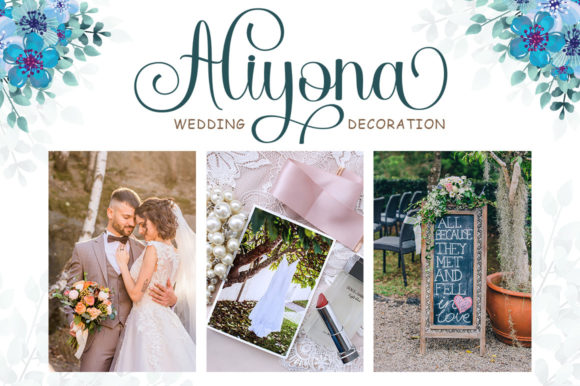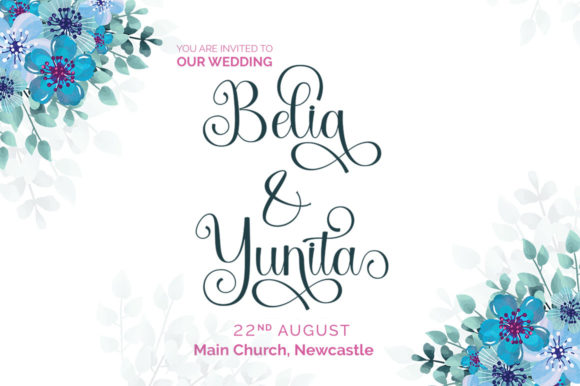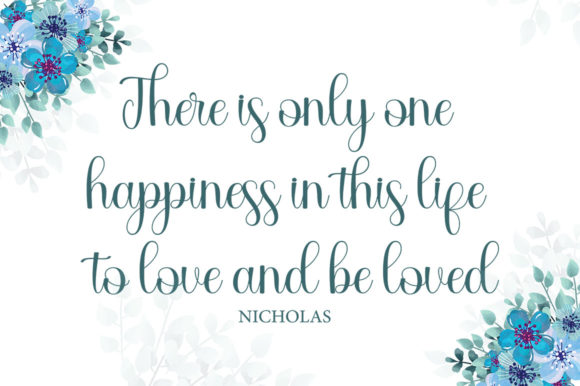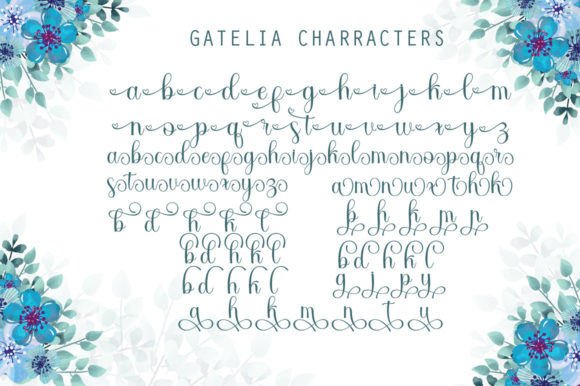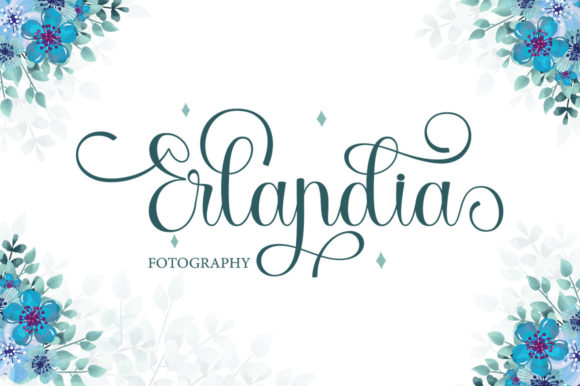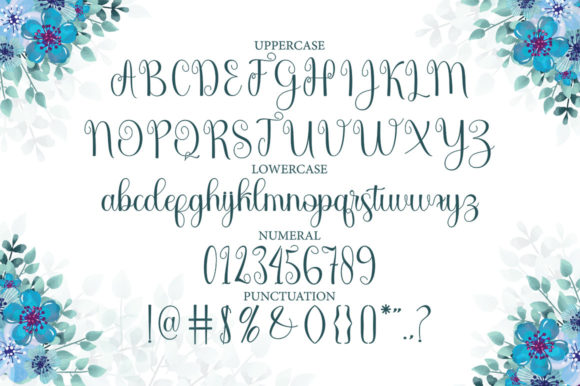
Gatelia Font: Elevate Your Designs with Elegance and Sophistication
In the world of typography, a font can make all the difference in the aesthetic and appeal of a design. For designers and crafters seeking a touch of elegance and sophistication, the Gatelia Font is an excellent choice. This highly detailed and thin lettered script font is designed to inspire and elevate your creative projects.
What is Gatelia Font?
Gatelia is a beautiful, script font characterized by its delicate and thin lettering. Its highly detailed design makes it perfect for a variety of applications, from digital designs to print materials. Whether you’re working on a logo, a poster, a wedding invitation, or any other design project, Gatelia can add a touch of class and refinement.
Key Features of Gatelia Font
- Highly Detailed and Thin Lettered: The font’s intricate details and thin strokes give it a unique and sophisticated look that stands out in any design.
- PUA Encoded: Gatelia is PUA (Private Use Area) encoded, which means you can easily access all the glyphs and sweeps. This feature is particularly useful for designers who want to have full control over the typography in their projects.
- Beautiful Style: The font’s elegant style is inspired by traditional calligraphy, making it perfect for designs that require a touch of sophistication.
- Ease of Use: Despite its intricate design, Gatelia is easy to use, even for those who are new to working with script fonts. The font is compatible with most design software, making it versatile for various applications.
Who Can Benefit from Gatelia Font?
Gatelia Font is an excellent resource for a wide range of designers and crafters, including:
- Graphic Designers: Professionals looking for a sophisticated font to use in their projects, such as logos, brochures, and posters.
- Digital Artists: Artists who create digital art, illustrations, and mixed media can use Gatelia to add text and enhance their work.
- Crafters: Crafters who make handmade cards, scrapbooking, and other paper crafts can use Gatelia to add a touch of elegance to their creations.
- Wedding Planners and Stylists: Those involved in planning and styling weddings can use Gatelia for wedding invitations, menus, and other stationery.
How to Use Gatelia Font Effectively
To make the most of Gatelia Font, consider the following tips:
- Pair with Complementary Fonts: Combine Gatelia with simpler fonts to create contrast and make your design more dynamic.
- Use for Headlines and Titles: The font’s detailed and elegant design makes it perfect for headlines and titles, where you want to grab attention.
- Experiment with Colors: While Gatelia looks great in traditional black and white, don’t be afraid to experiment with colors to match your design’s mood.
- Take Advantage of PUA Encoding: Explore the font’s glyphs and sweeps to add unique touches to your design.
Gatelia Font is a versatile and elegant script font that can elevate your designs with its sophisticated and detailed style. Its PUA encoding makes it easy to use and customize, while its compatibility with various design software ensures that it can be used in a wide range of applications. Whether you’re a professional designer or a crafter, Gatelia is an excellent addition to your font collection. Get inspired by its beauty and create lovely designs that stand out.